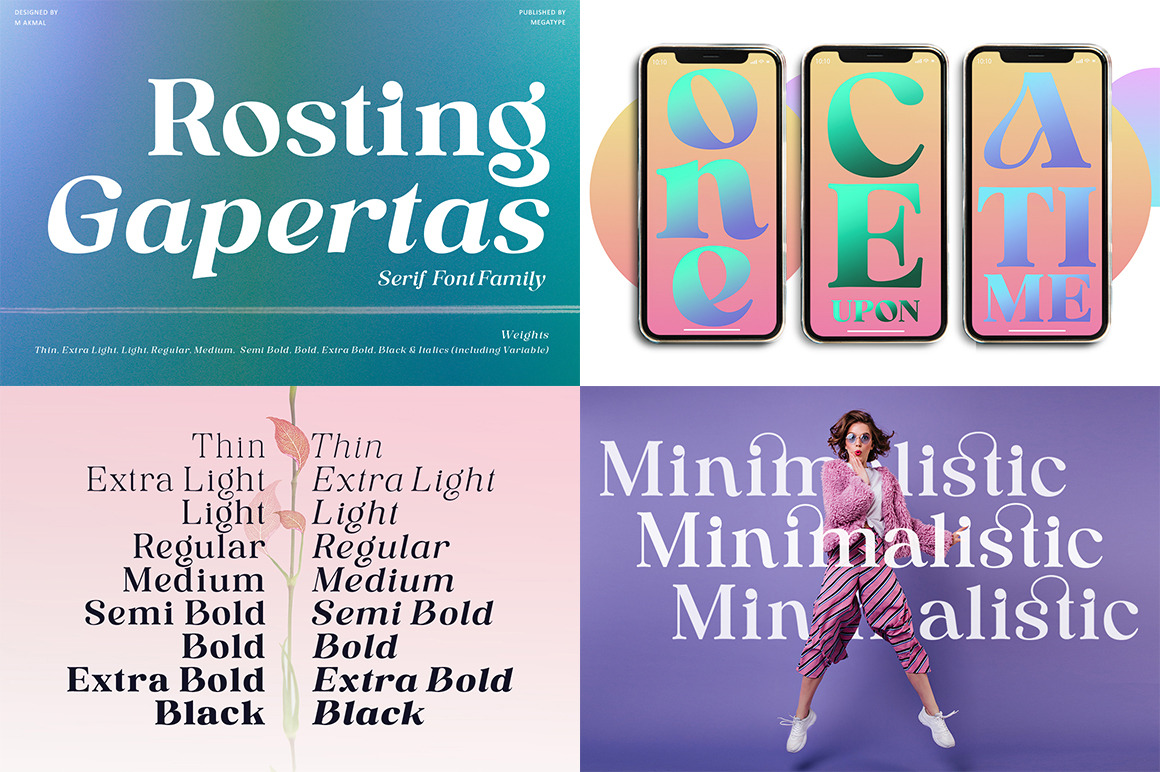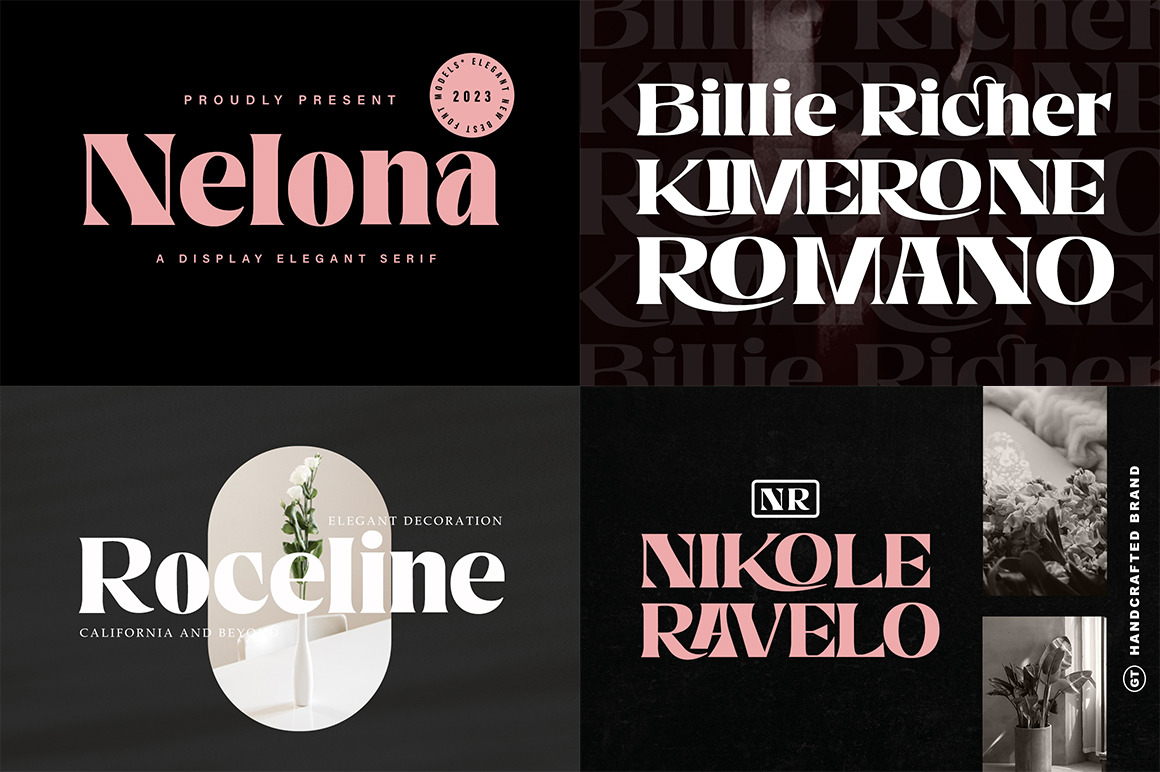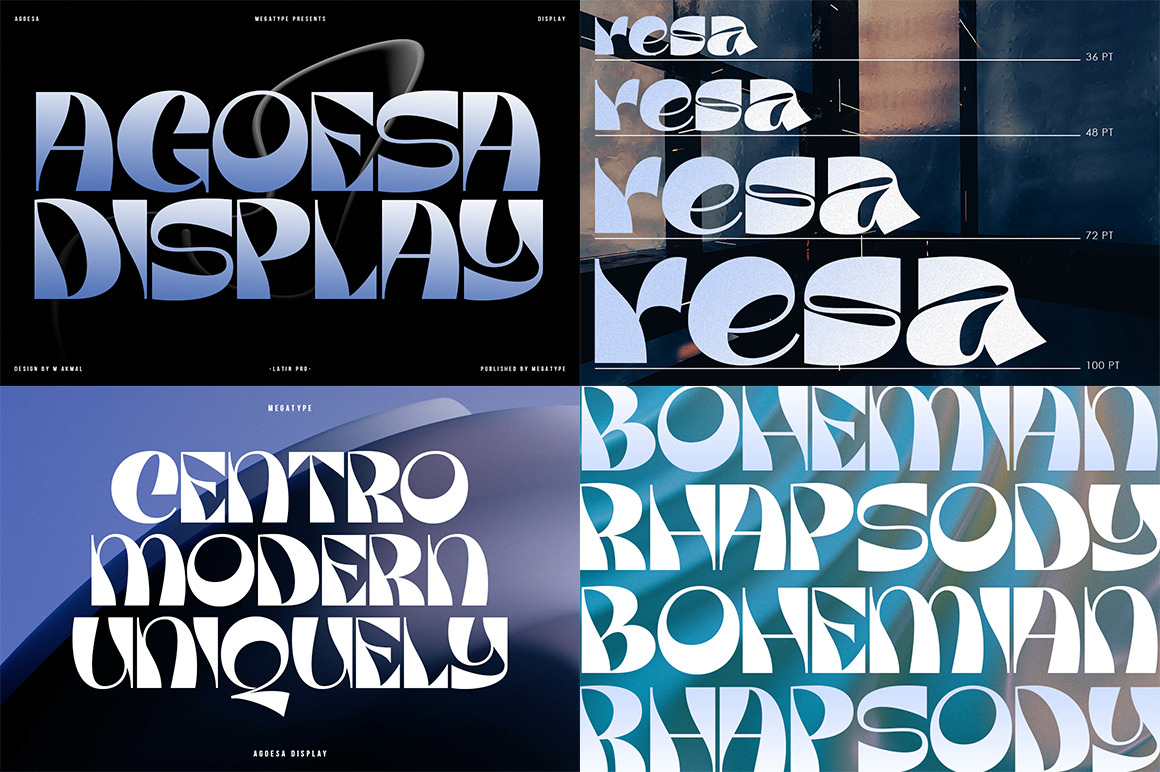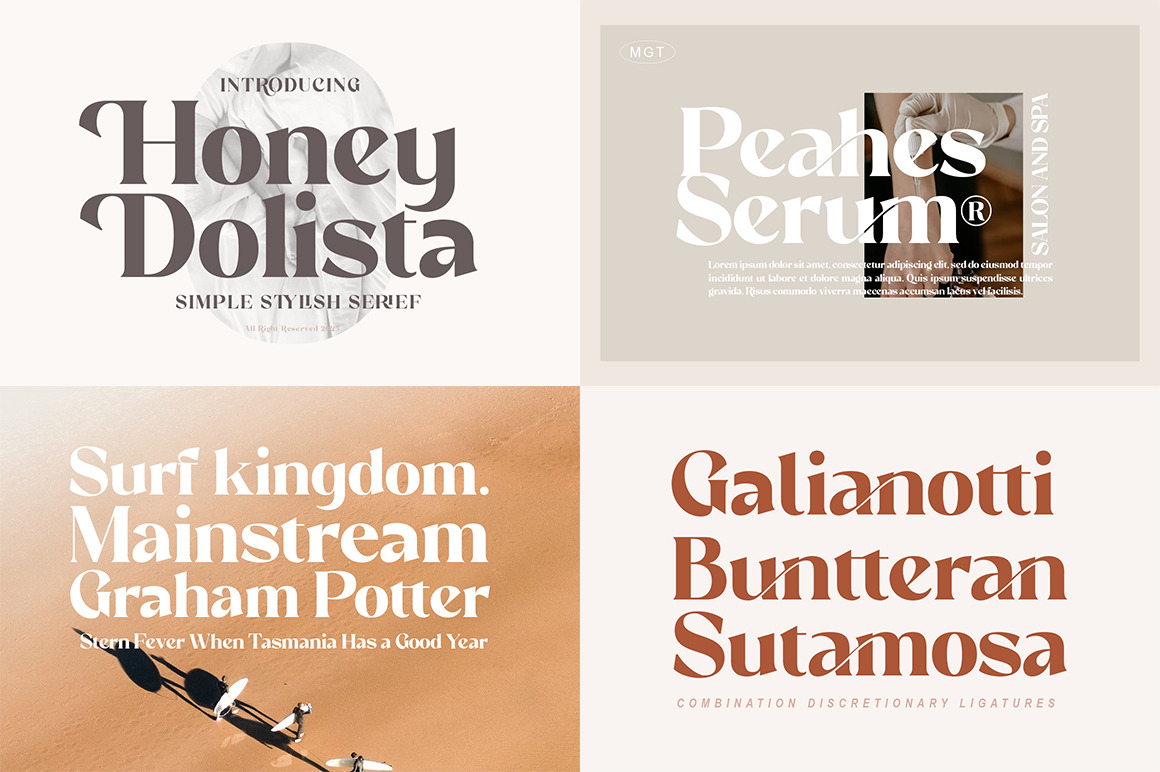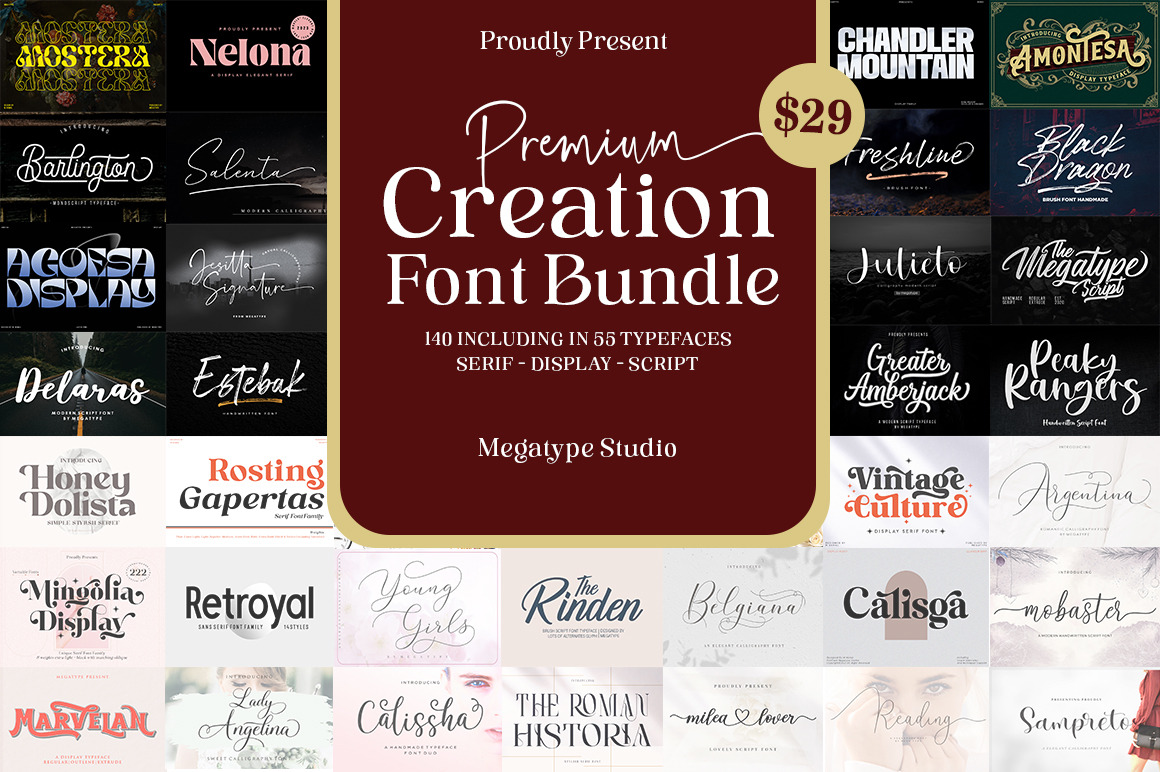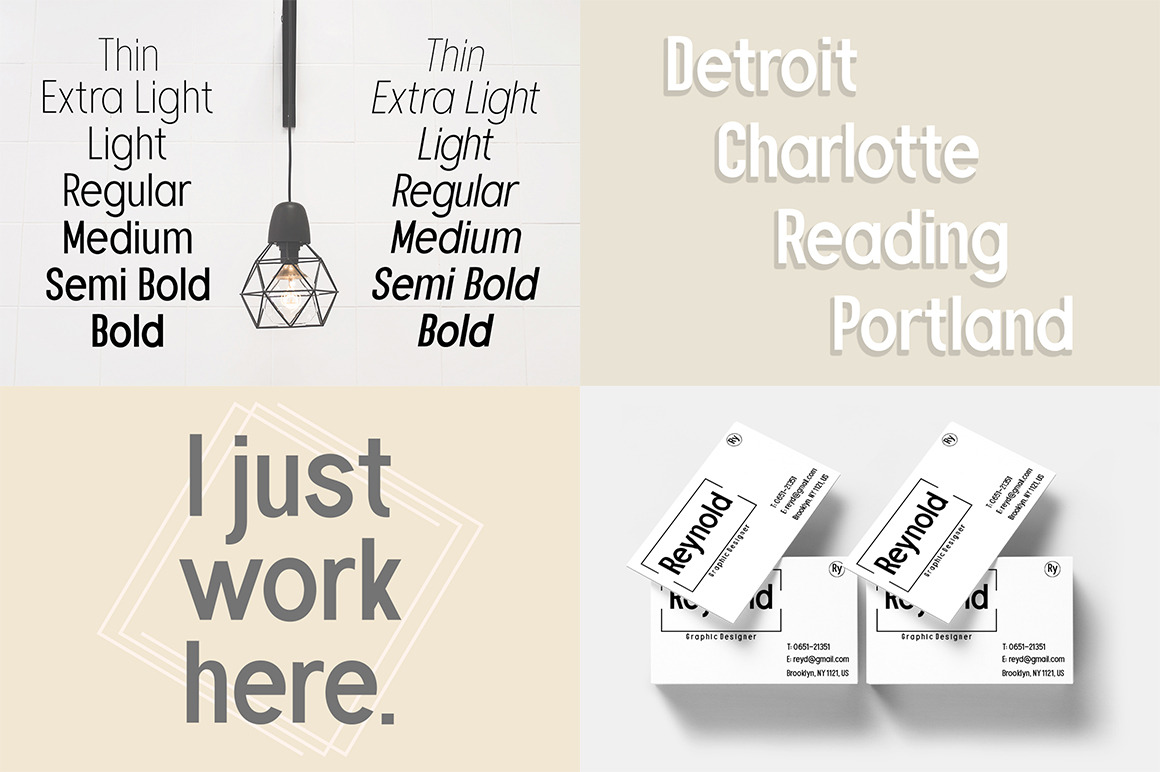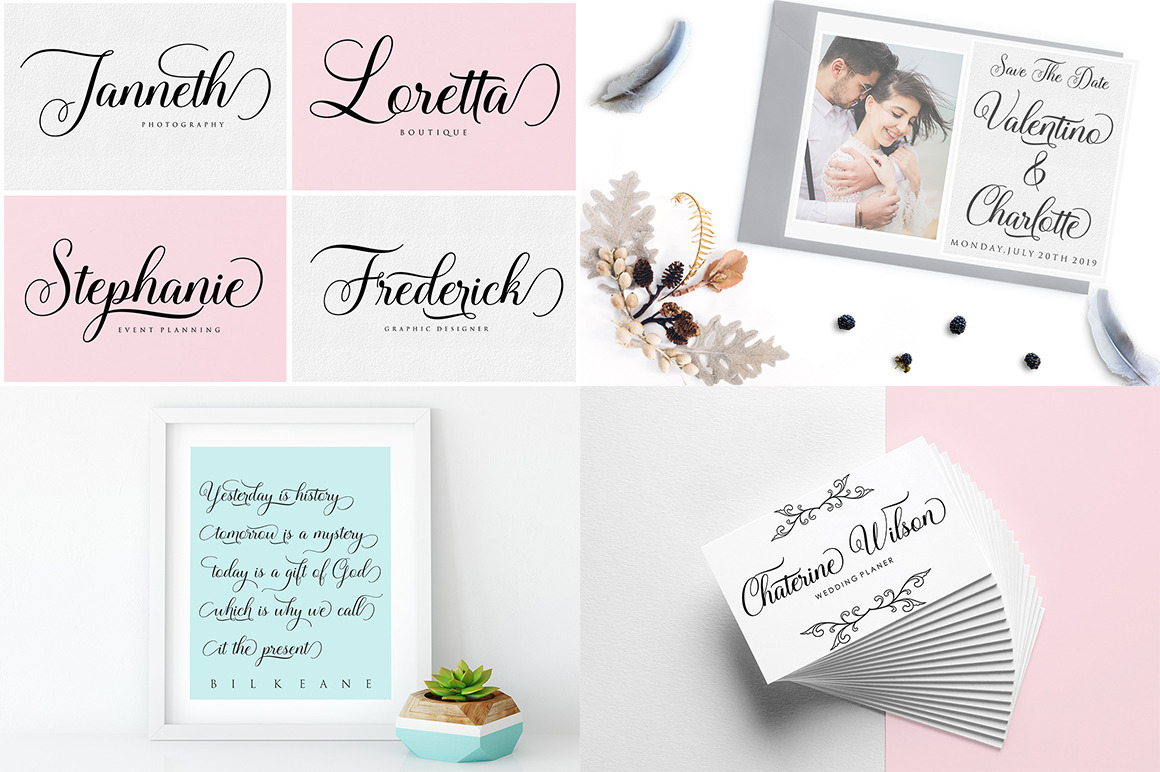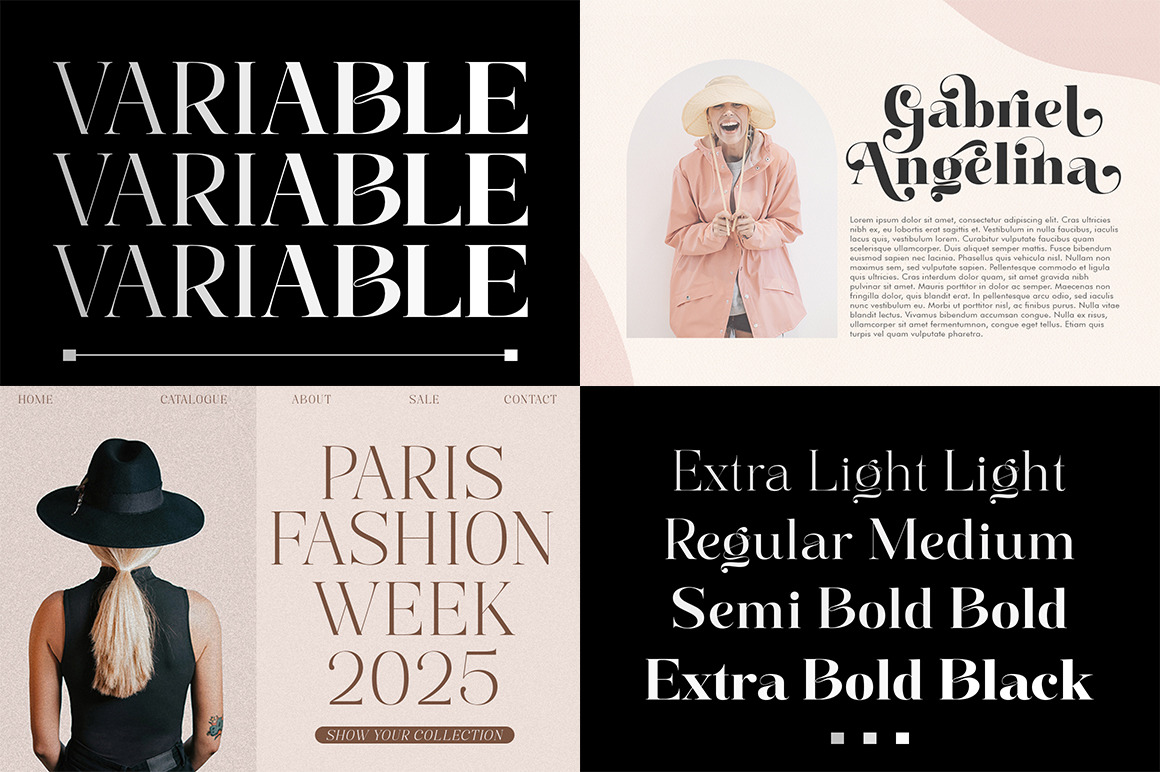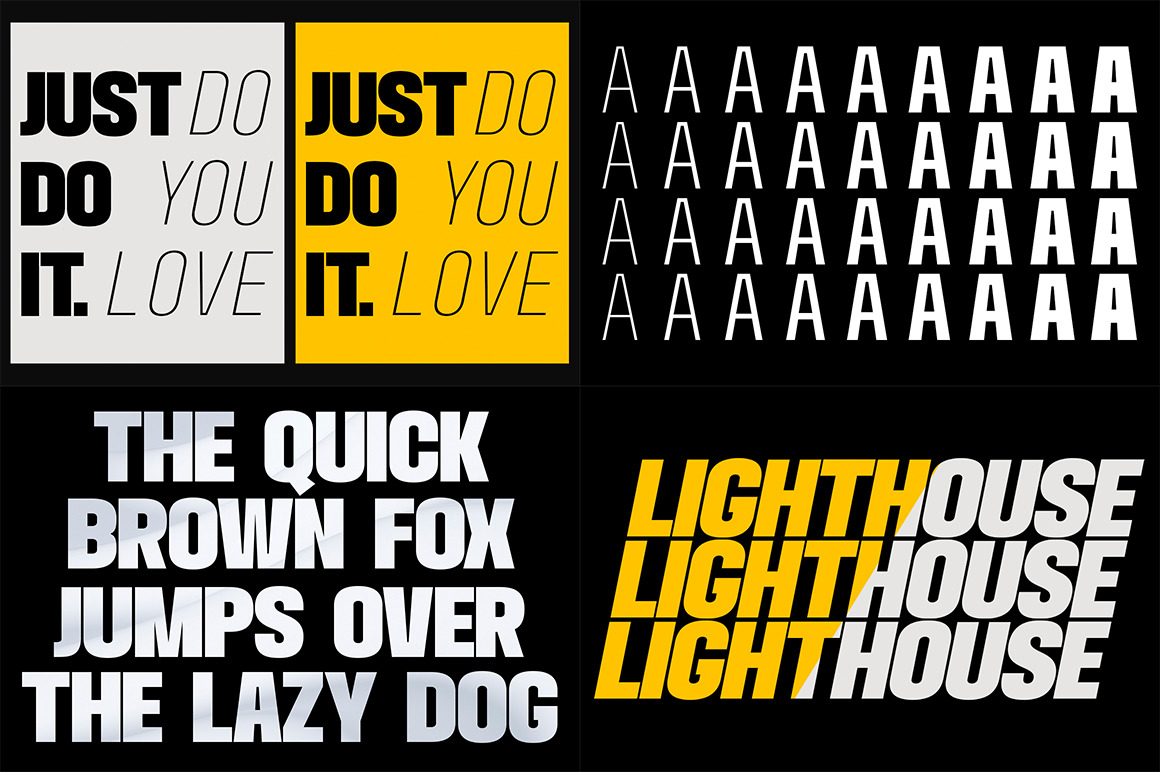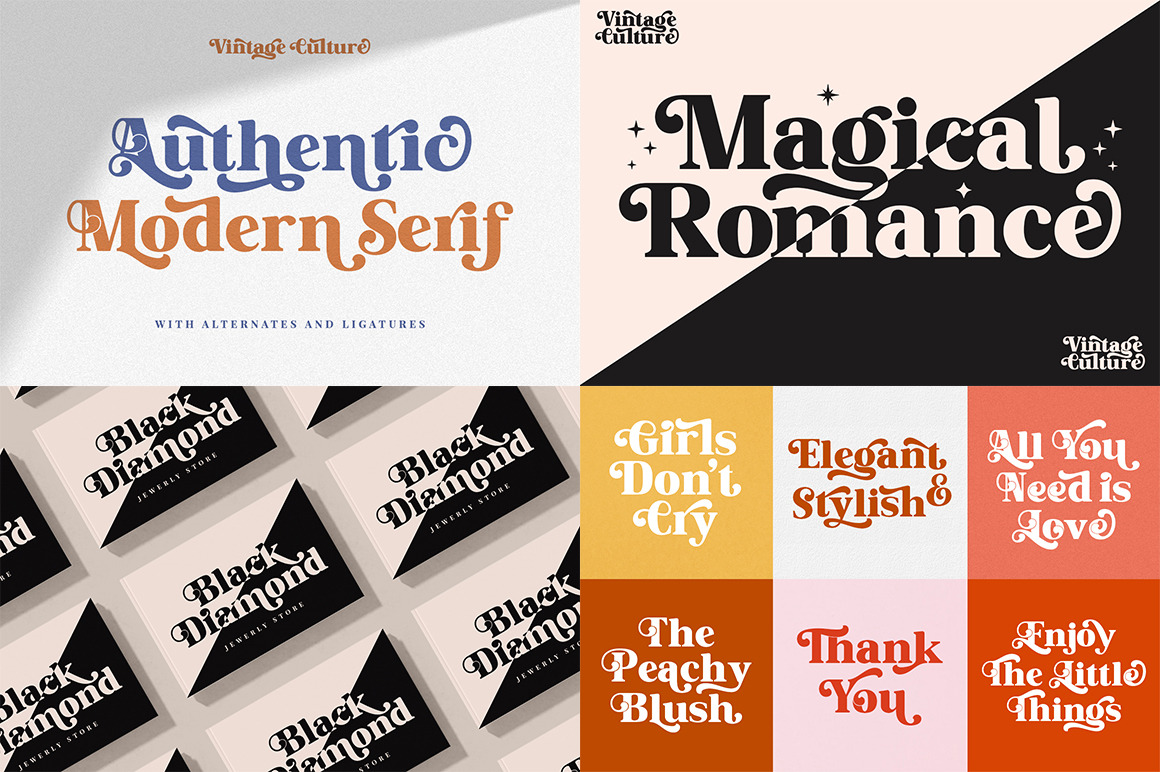
Introducing "The Premium Creation Font Bundle" by Mega Type. All the Fonts in my shop in this one Big Bundle. For only $29. - This bundle includes a variety of font styles, including some best-selling fonts featuring Serif, Sans Serif, Display, elegant Script Fonts, and realistic brush fonts. Perfect for greeting cards, branding, business cards, quotes, posters, stickers, blogs, logos, weddings, signs, packaging and more. This bundle has it all! With hundreds of glyphs, including alternates, ligatures, swashes, split swashes, contextual alternates, and international language support. which can be accessed using smart OpenType programs such as Adobe Illustrator, Adobe InDesign, CorelDraw X6-X7, Microsoft Word 2010 or later versions. Also supports PUA coding. Access font characters are compatible with Silhouette Studio, Cricut Design Space. Just copy and paste alternative characters using Character Map (Windows), Nexus Font (Windows), Font Book (Mac) or a software program like PopChar (for Windows and Mac). Features : - Uppercase - Lowercase - Numeral - Accent (multilingual characters) - Ligatures - Alternates - TTF/OTF - Swash How To Access Alternate Characters: https://www.youtube.com/watchv=Go9vacoYmBw https://www.youtube.com/watchv=XzwjMkbB-wQ https://www.youtube.com/watchv=x1A_ilsBsGs https://www.youtube.com/watchv=xFlMwARHusY https://www.youtube.com/watchv=NVJlZQ3EZU0 - Commercial Use Permitted and Creates Unlimited End Products for Sale. https://creativemarket.com/licenses/general If you need help or suggestions, please contact me via email "  " Thank you for your purchase! | The Premium Creation Font Bundle | Megatype